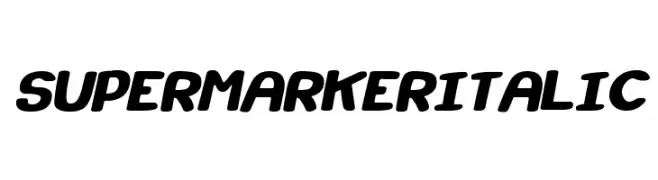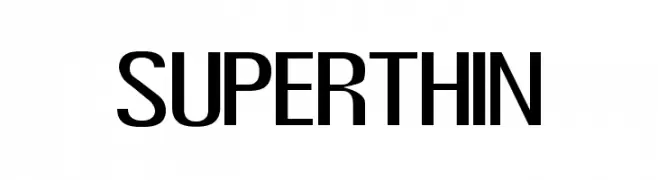
A flowing, cursive handwritten font with smooth, continuous strokes.
A bold, geometric font with sharp angles and strong strokes.
A charming and elegant handwritten font with fluid strokes.
An elegant, flowing script font with high contrast and italic style.
A casual, friendly handwritten font with smooth, flowing lines and a slightly slanted style.
A bold, handwritten font with a playful and friendly style.
A playful, handwritten italic font with bold, rounded strokes.
A tall, narrow font with a modern and sleek design.
A bold, italicized font with a playful, handwritten style.
A modern, sleek font with tall, narrow characters and uniform stroke width.